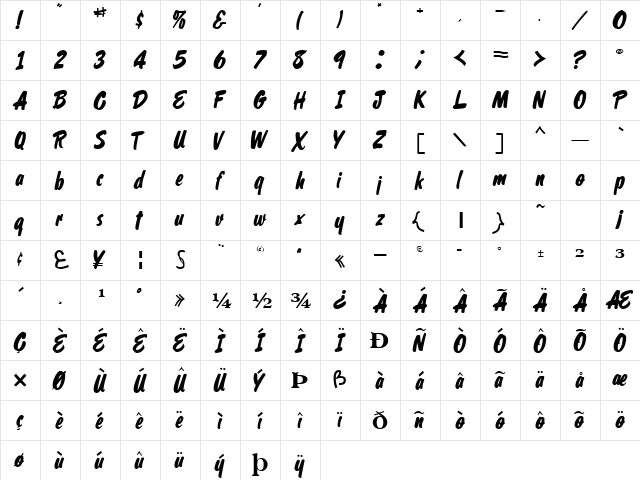
Shelman Regular
Design Context for Shelman Typeface
Shelman is a composed and adaptable typeface that performs quietly and consistently across a wide range of design contexts.